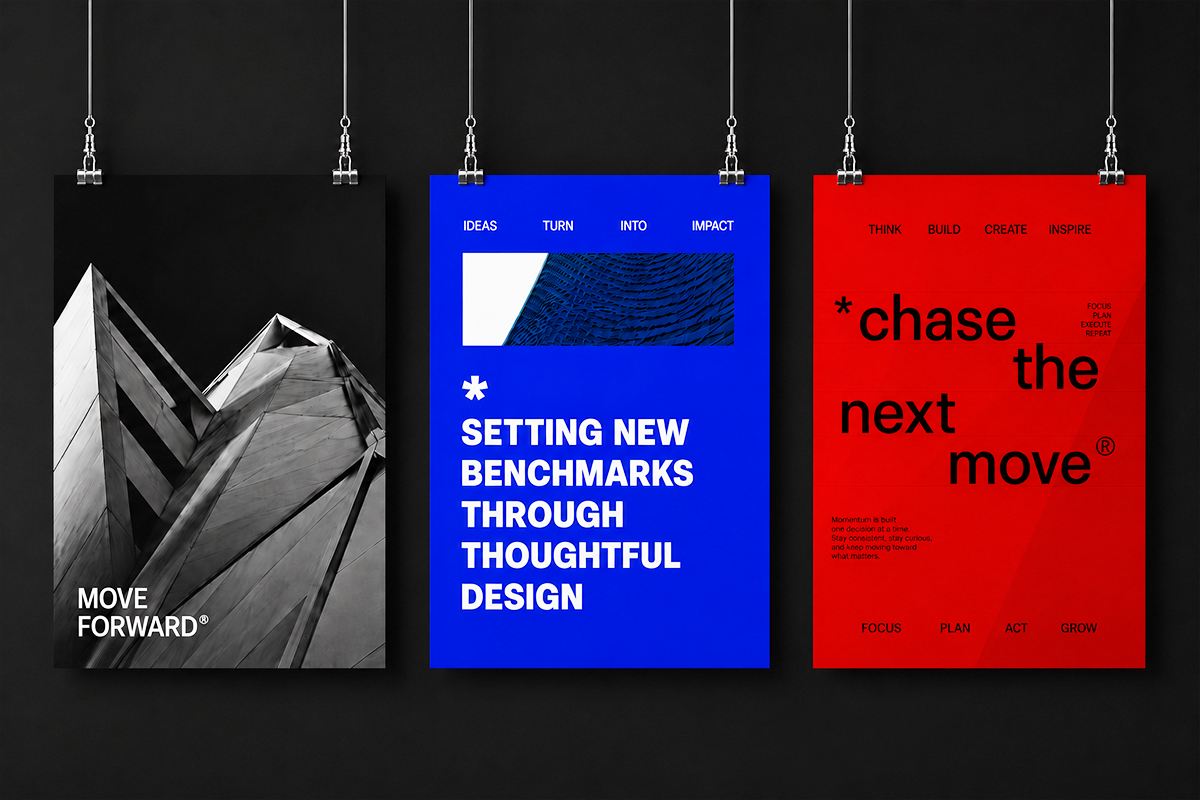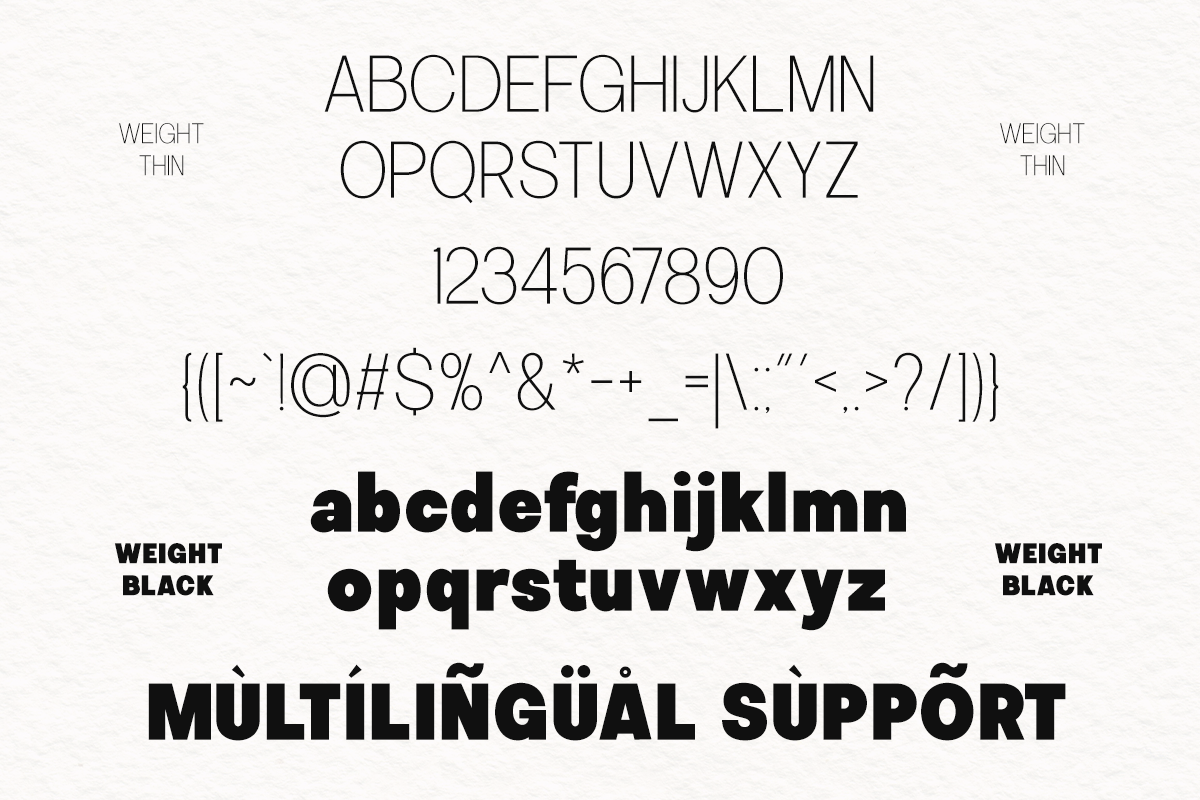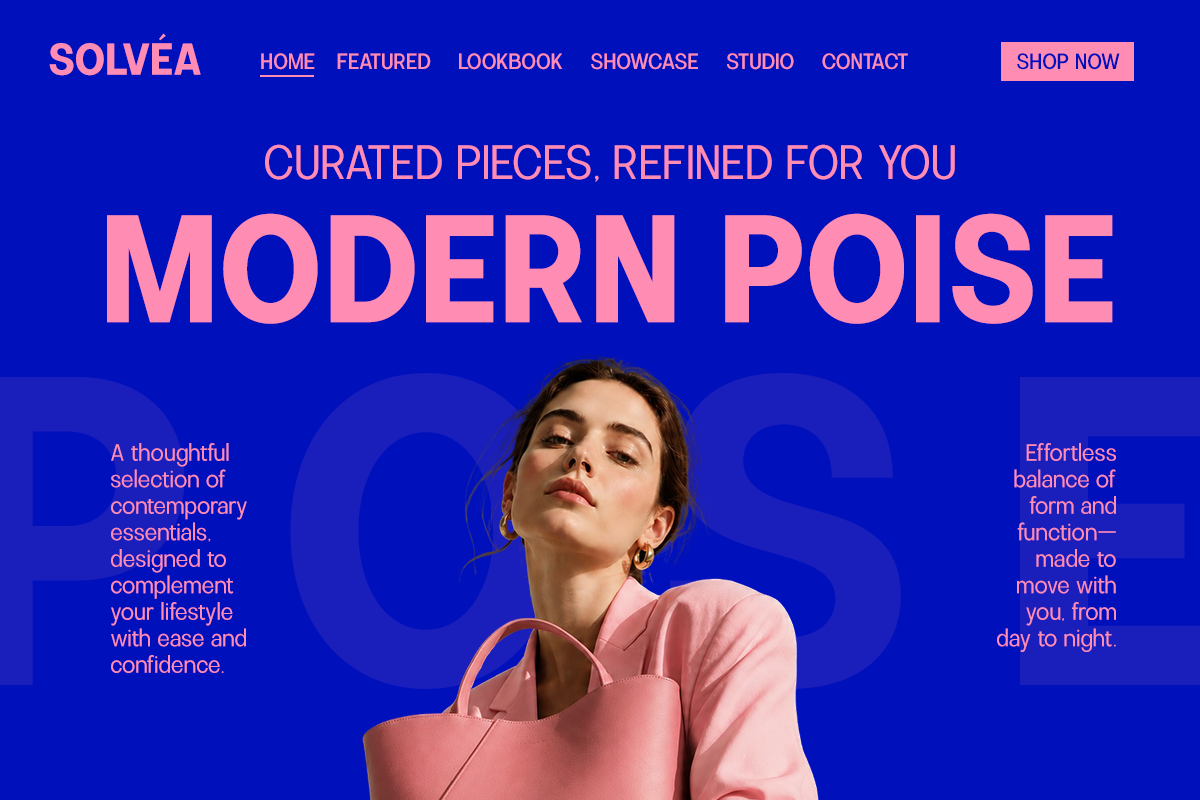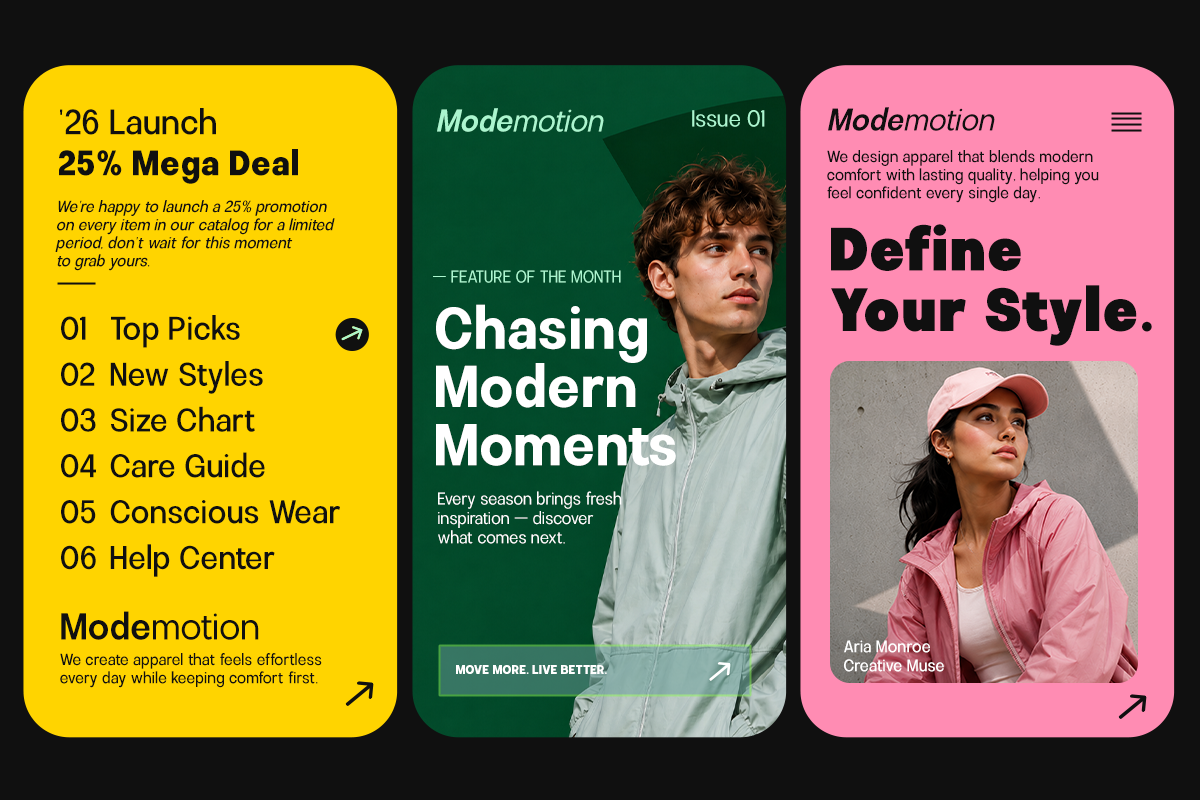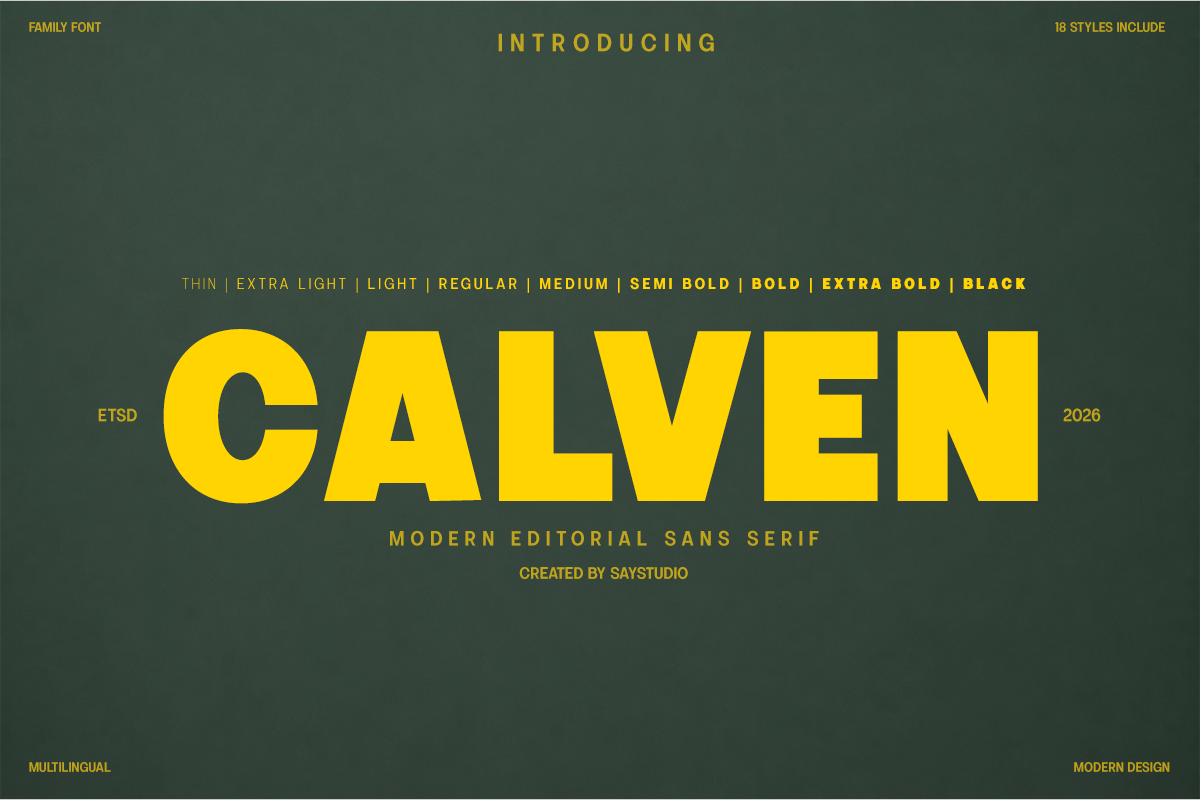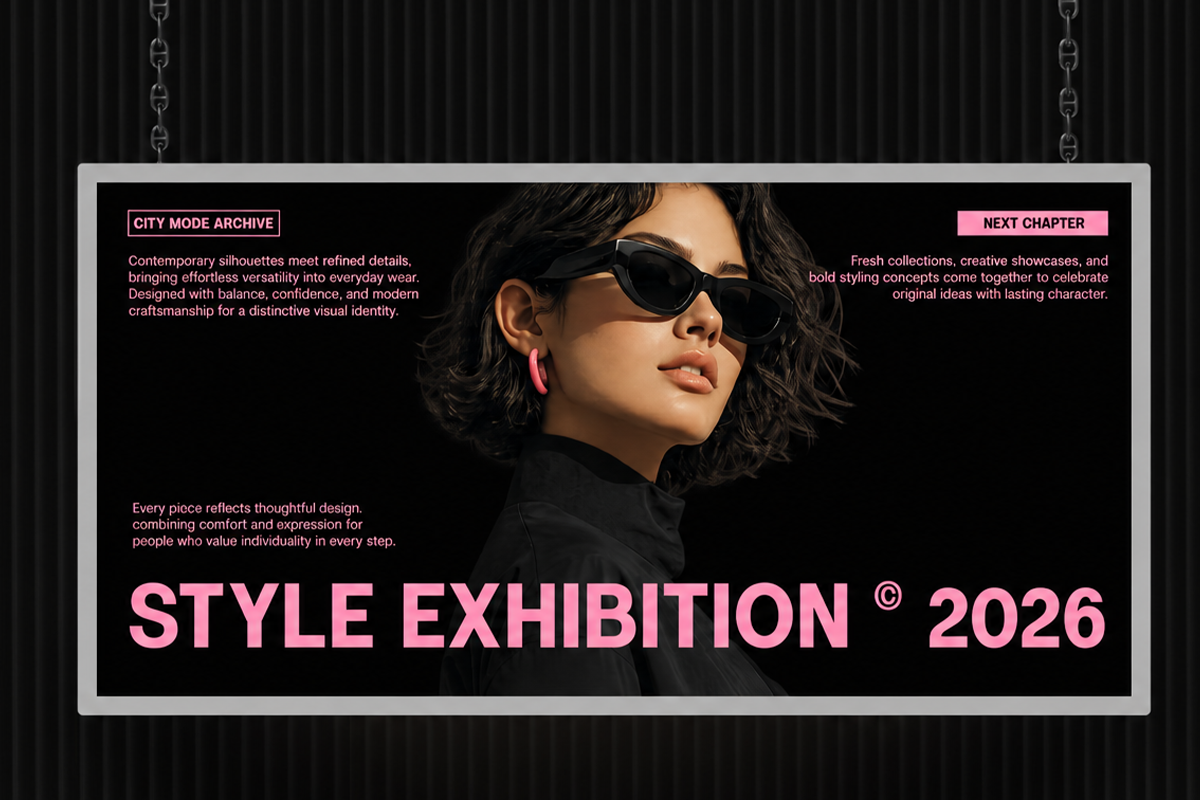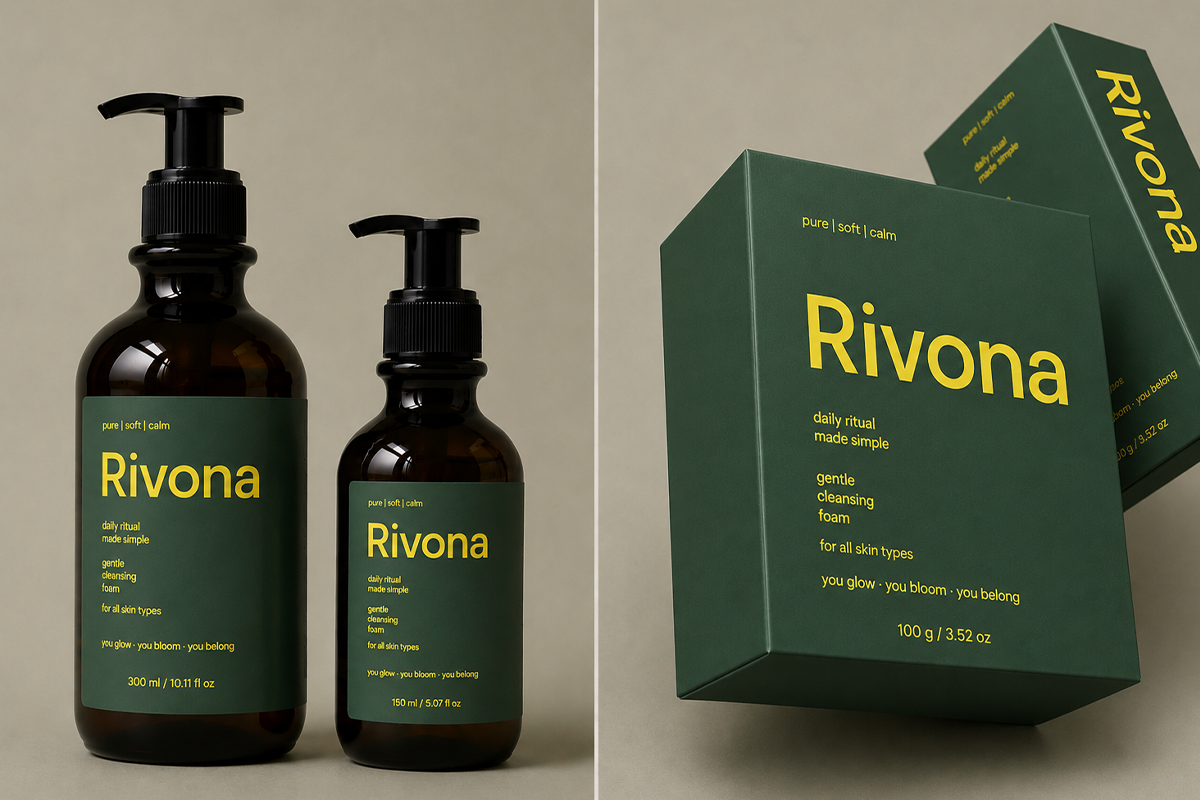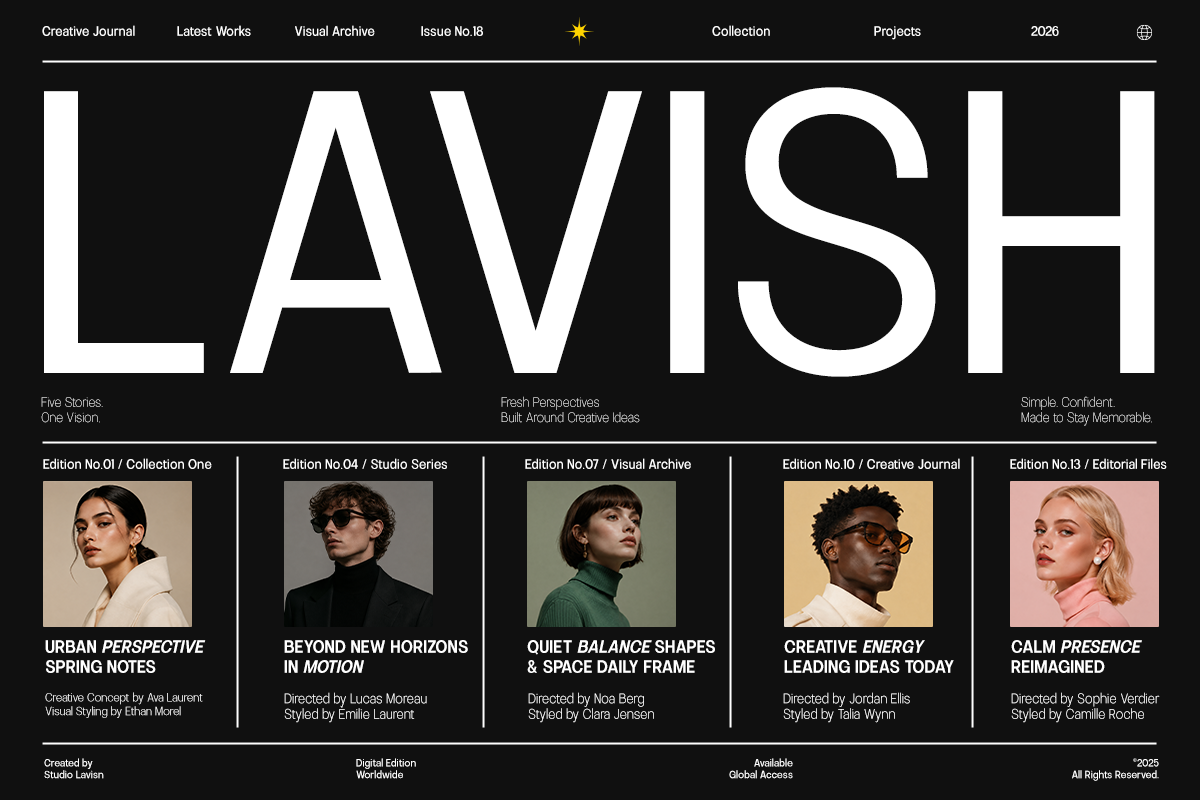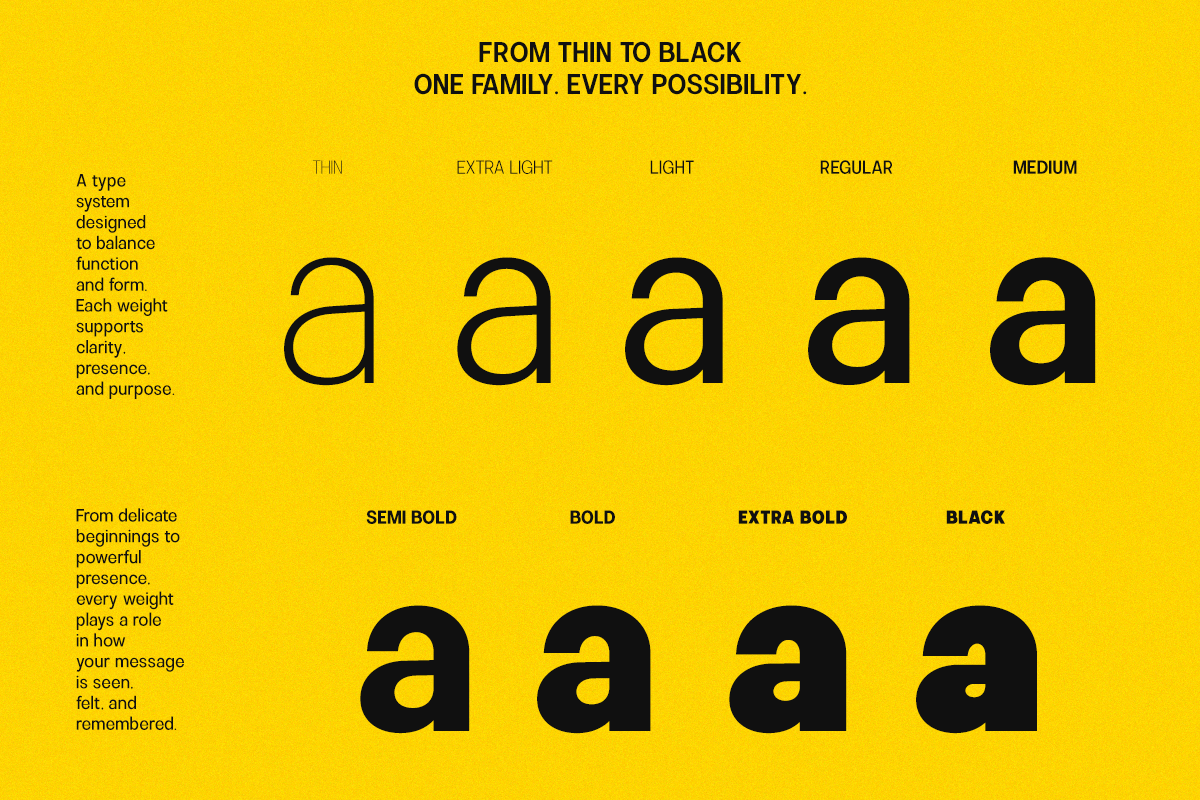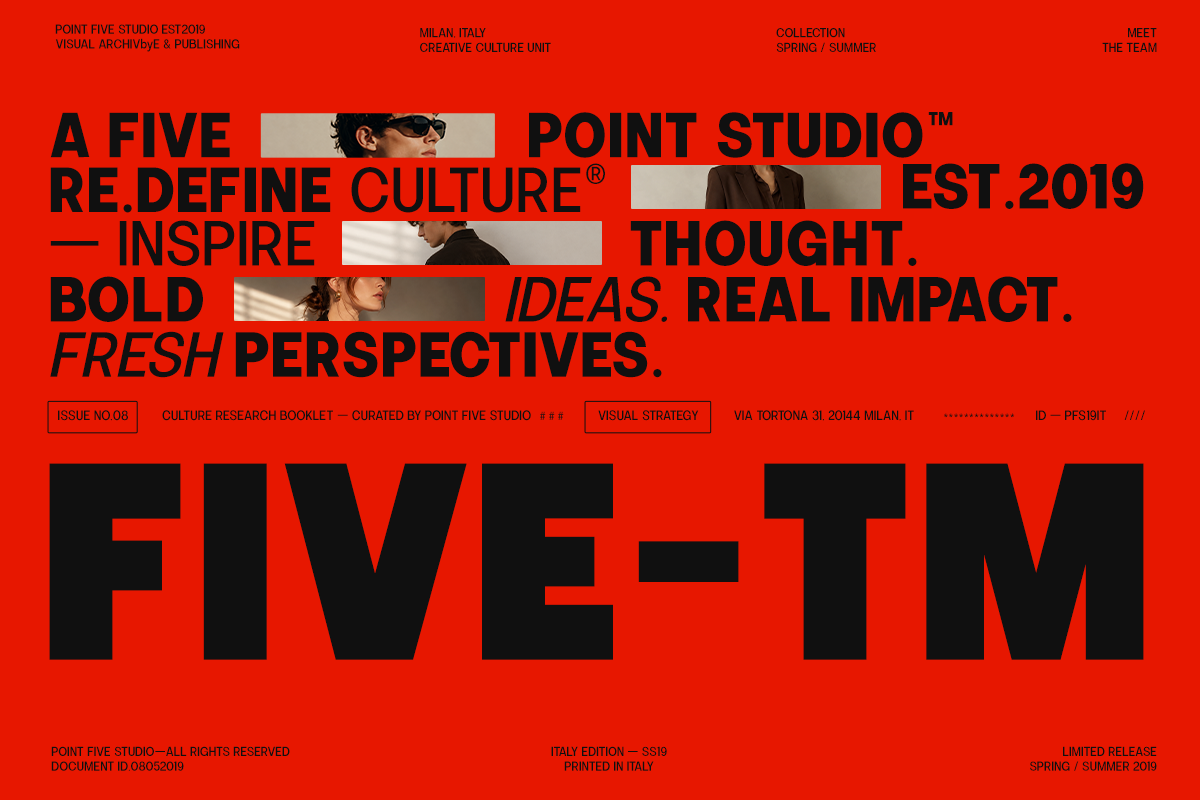
Calven - Family Modern Sans Font
Calven is a modern editorial sans serif font family crafted to deliver bold impact with refined minimalism. Featuring 18 versatile styles from Thin to Black, Calven combines clean geometric construction with contemporary proportions, making it perfect for striking headlines, premium branding, and sophisticated editorial layouts.
Designed for creative professionals, Calven performs beautifully across magazines, logos, packaging, websites, advertising, social media, posters, presentations, and corporate identity systems. Its balanced letterforms ensure outstanding readability while maintaining a confident and modern visual presence.
Whether you're designing for fashion, technology, architecture, luxury branding, startups, or creative agencies, Calven provides the flexibility and consistency needed for professional typography. With multilingual support and multiple font weights, it is an excellent choice for both digital and print projects.
9 Weights Variable
Regular and Italic Style
Number, Symbol, and Punctuation
Multi Language Support